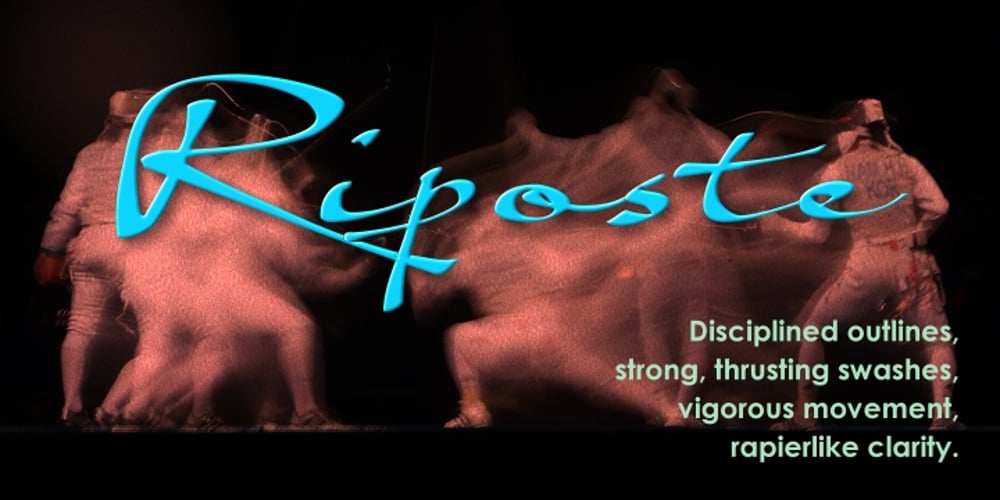
Riposte
Riposte font
Riposte Font Family was designed by Anton Scholtz and published by Scholtz Fonts. Riposte contains 1 styles and family package options. Riposte is a powerful and carefully-integrated handwriting font. You should use it where you want to create a strong impact but want to avoid heavy, boxy, formal fonts. The characters were designed for excellent letter-spacing without kerning, but you can switch kerning on to add some subtle enhancements to the letter-spacing. Riposte is readable, even at quite small sizes. It was designed to be used as a mix of upper and lower-case letters. Do not make text using only uppercase letters since the spacing of the uppercase letters was optimized for use together with lowercase letters. So remember, when you want your text to have the powerful impact of the master swordsman with his balanced stance and vigorous movement — try Riposte. The font is fully professional: carefully letterspaced and kerned. It contains over 235 characters – (upper and lower case characters, punctuation, numerals, symbols and accented characters are present). It has all the accented characters used in the major European languages. Riposte works well in professional layout application packages as well as in word-processing packages such as Microsoft Word® that do not support professional kerning.